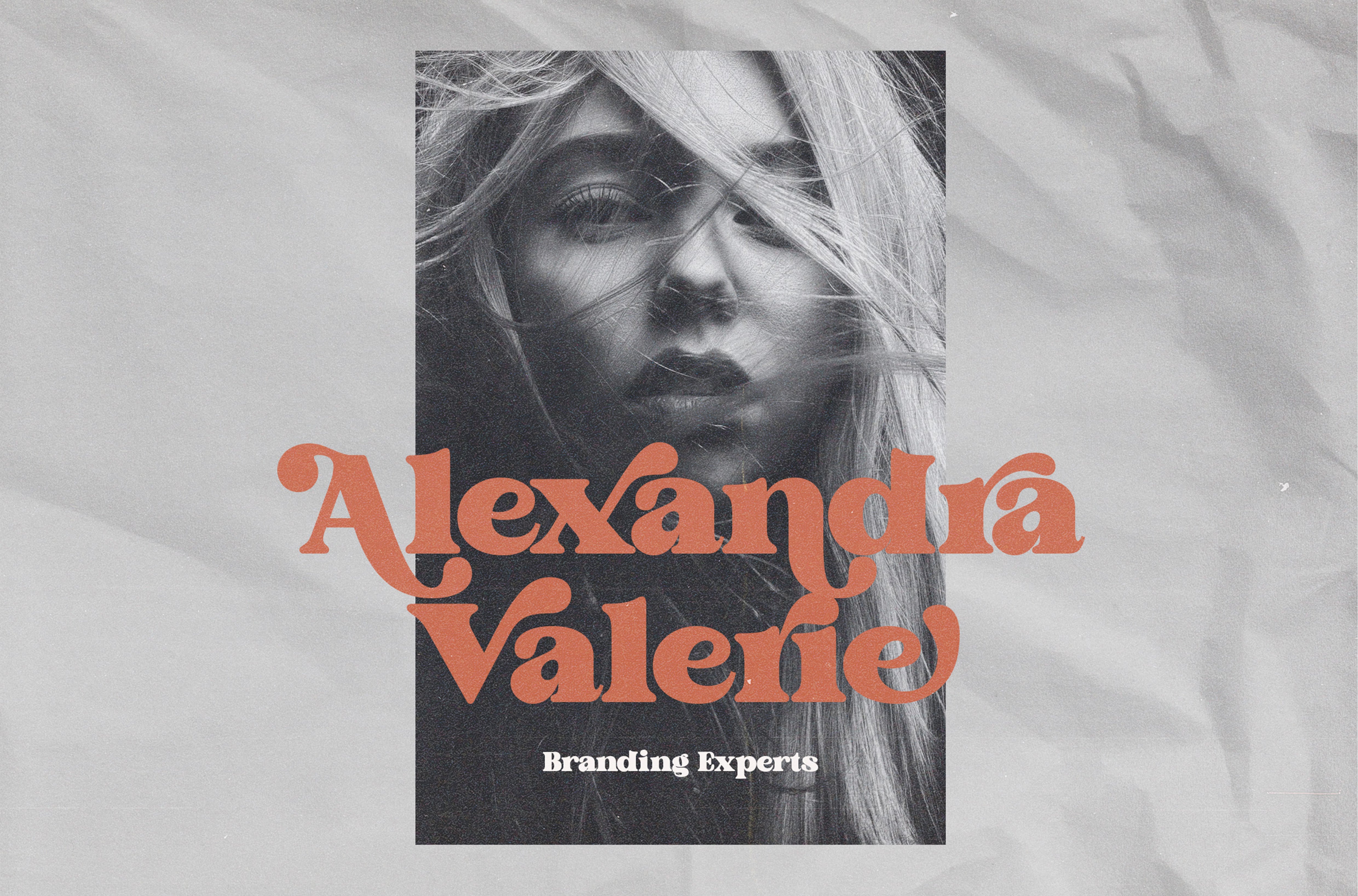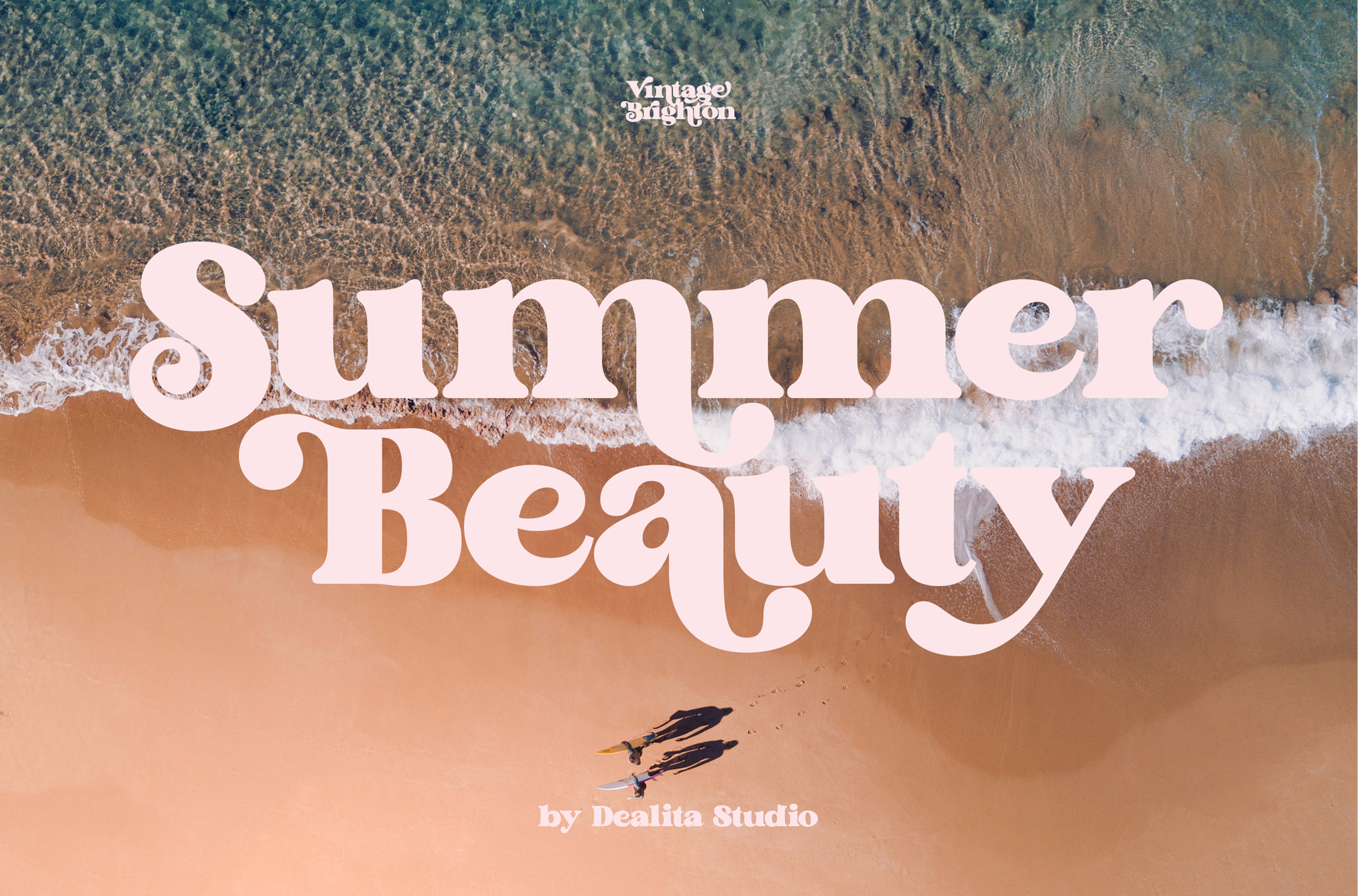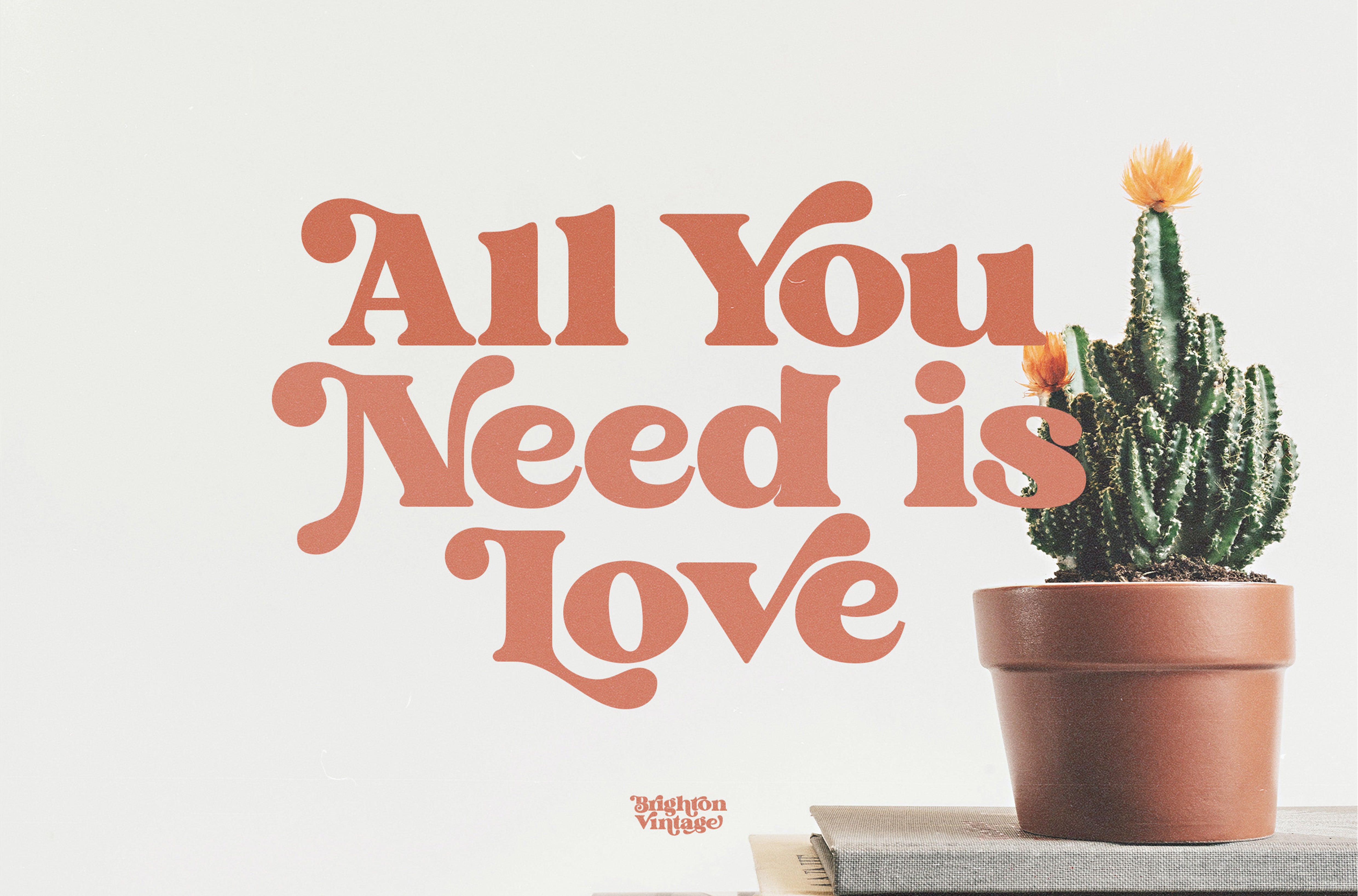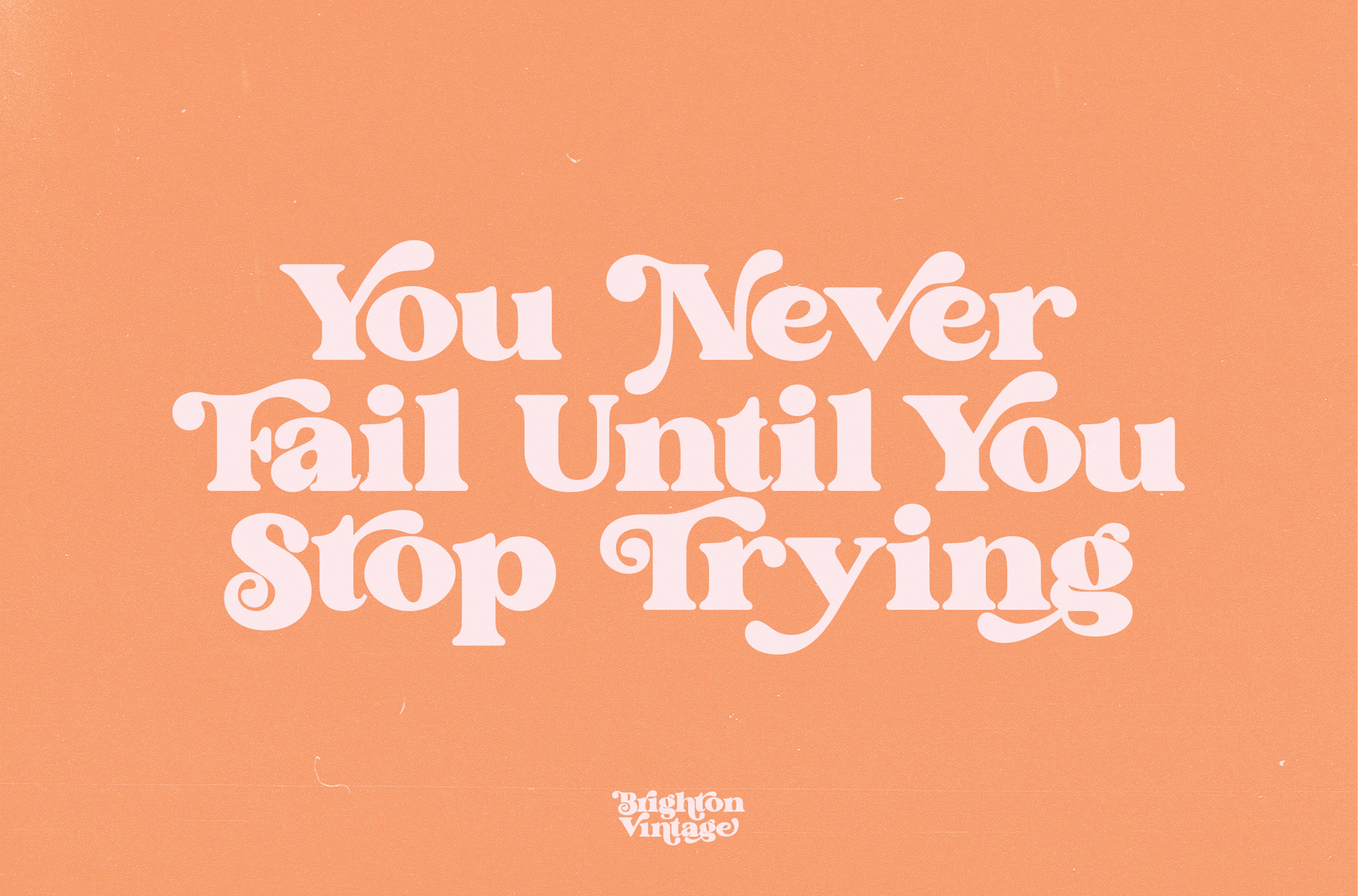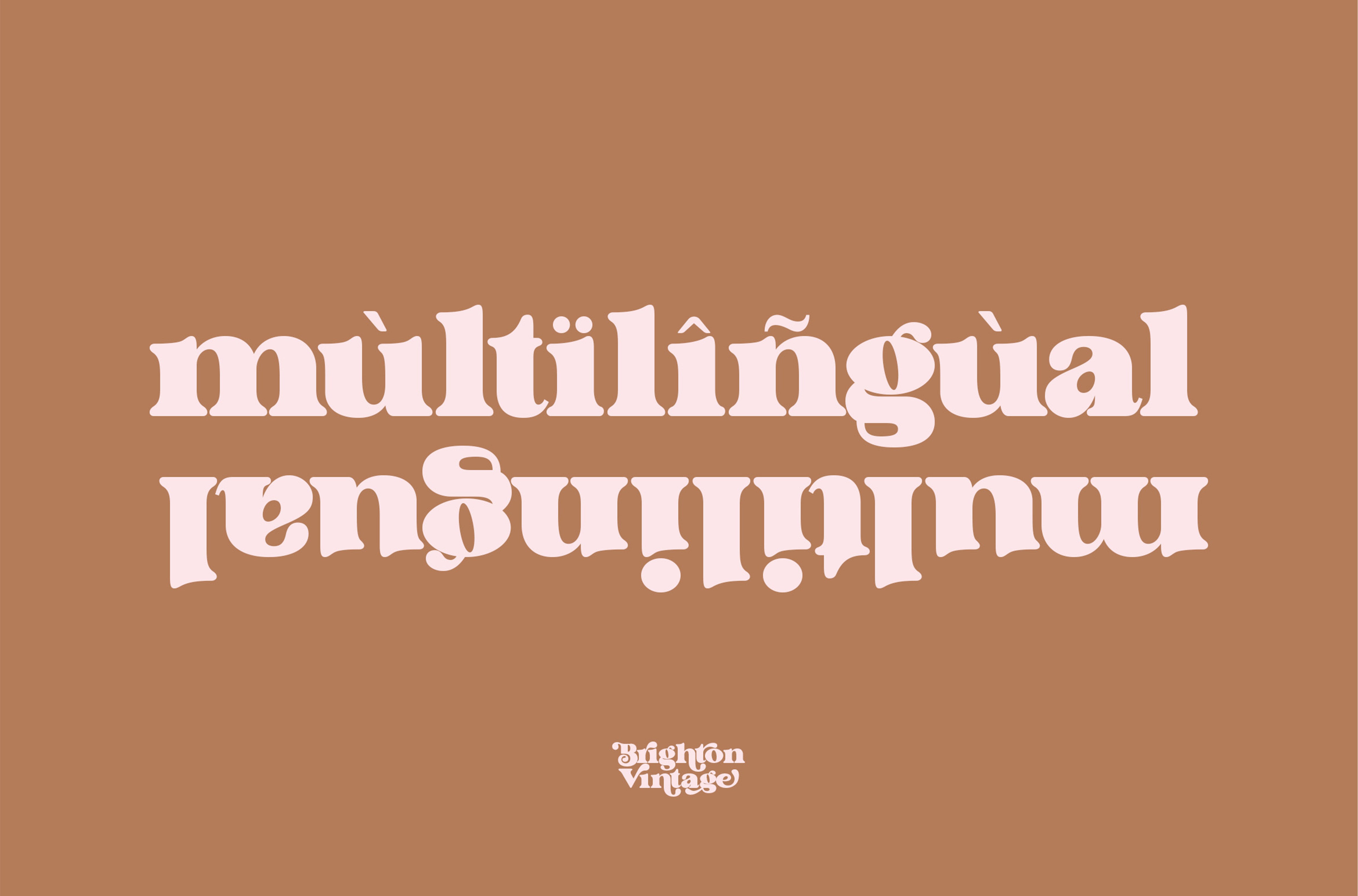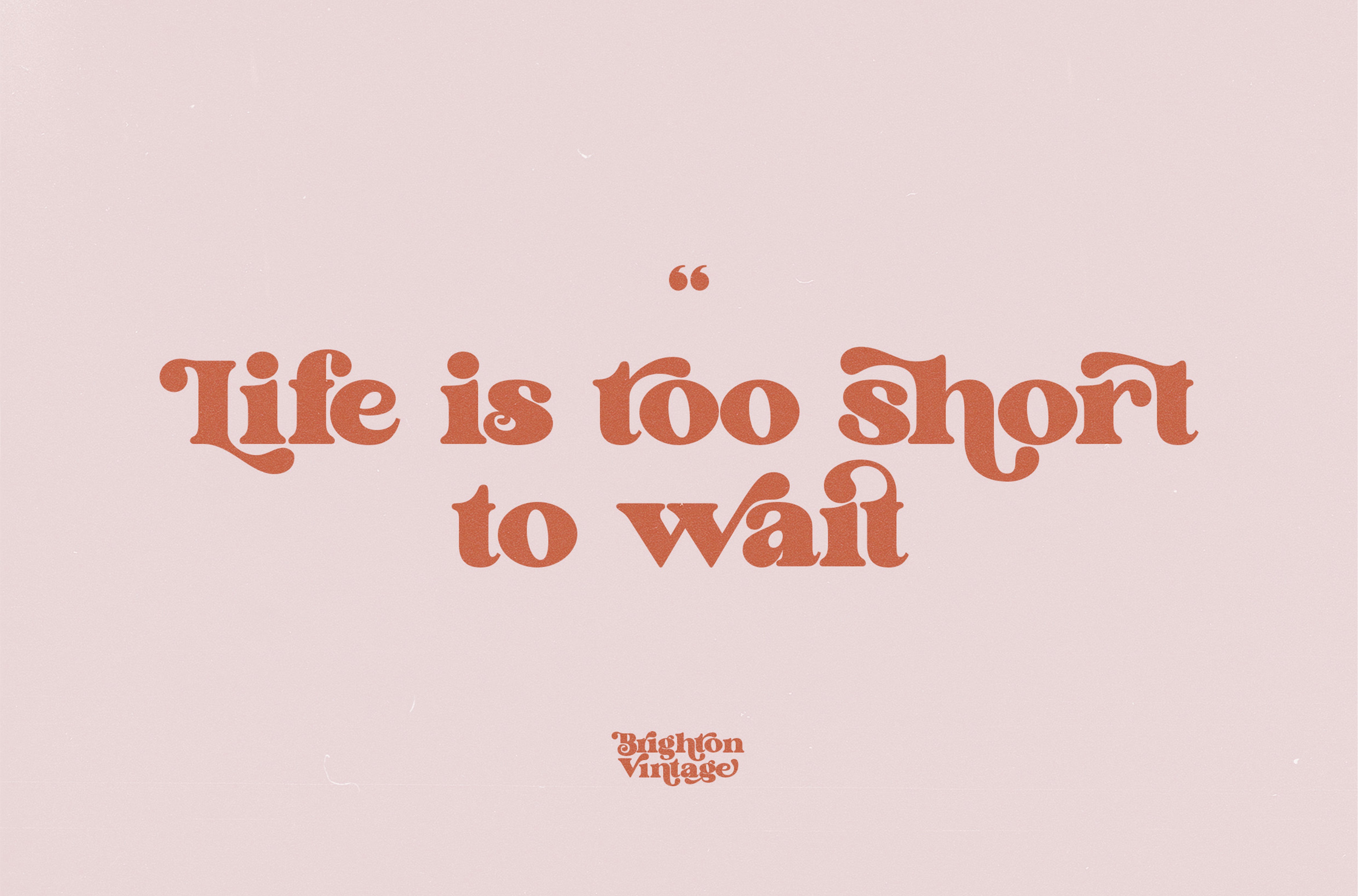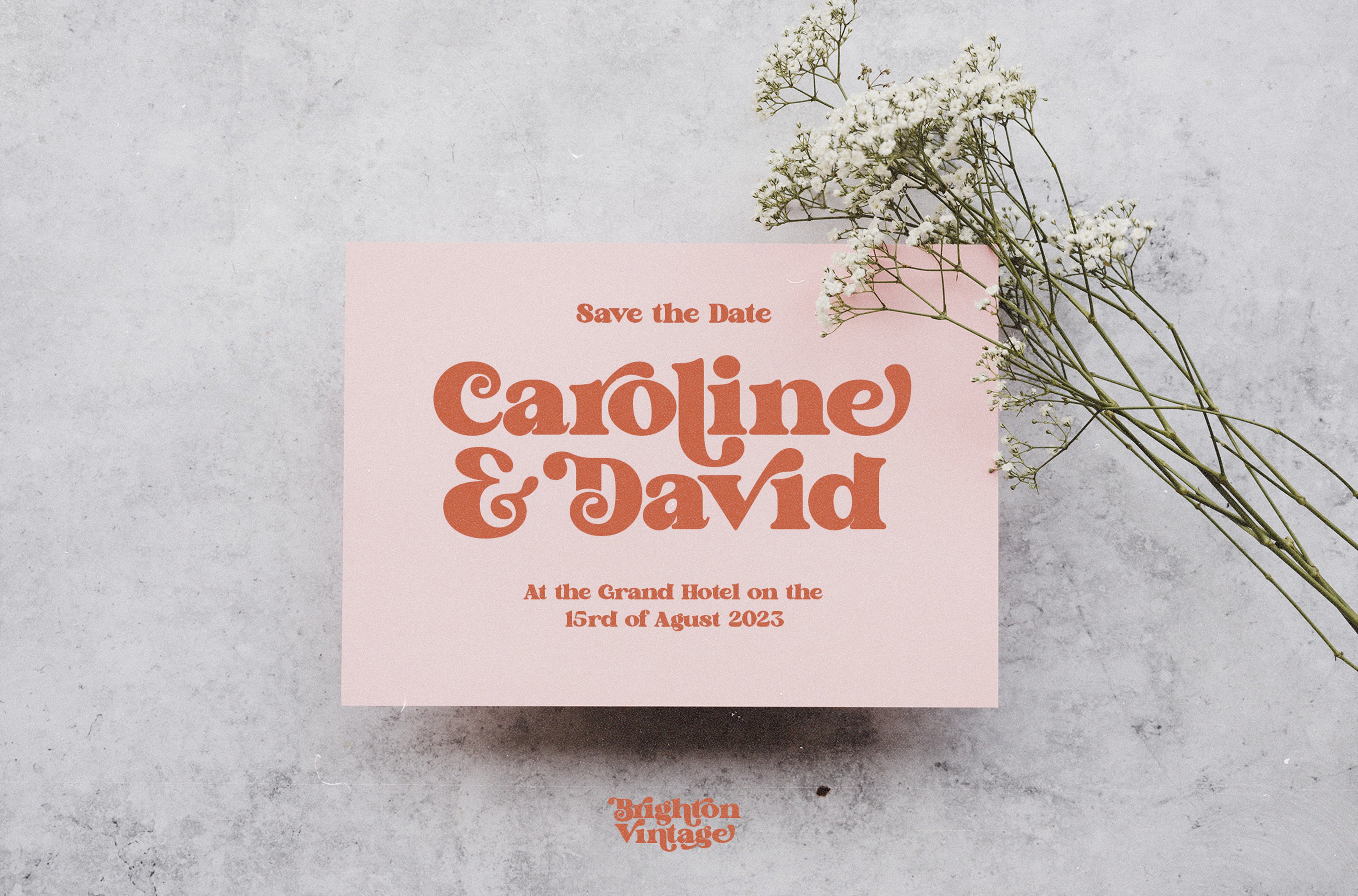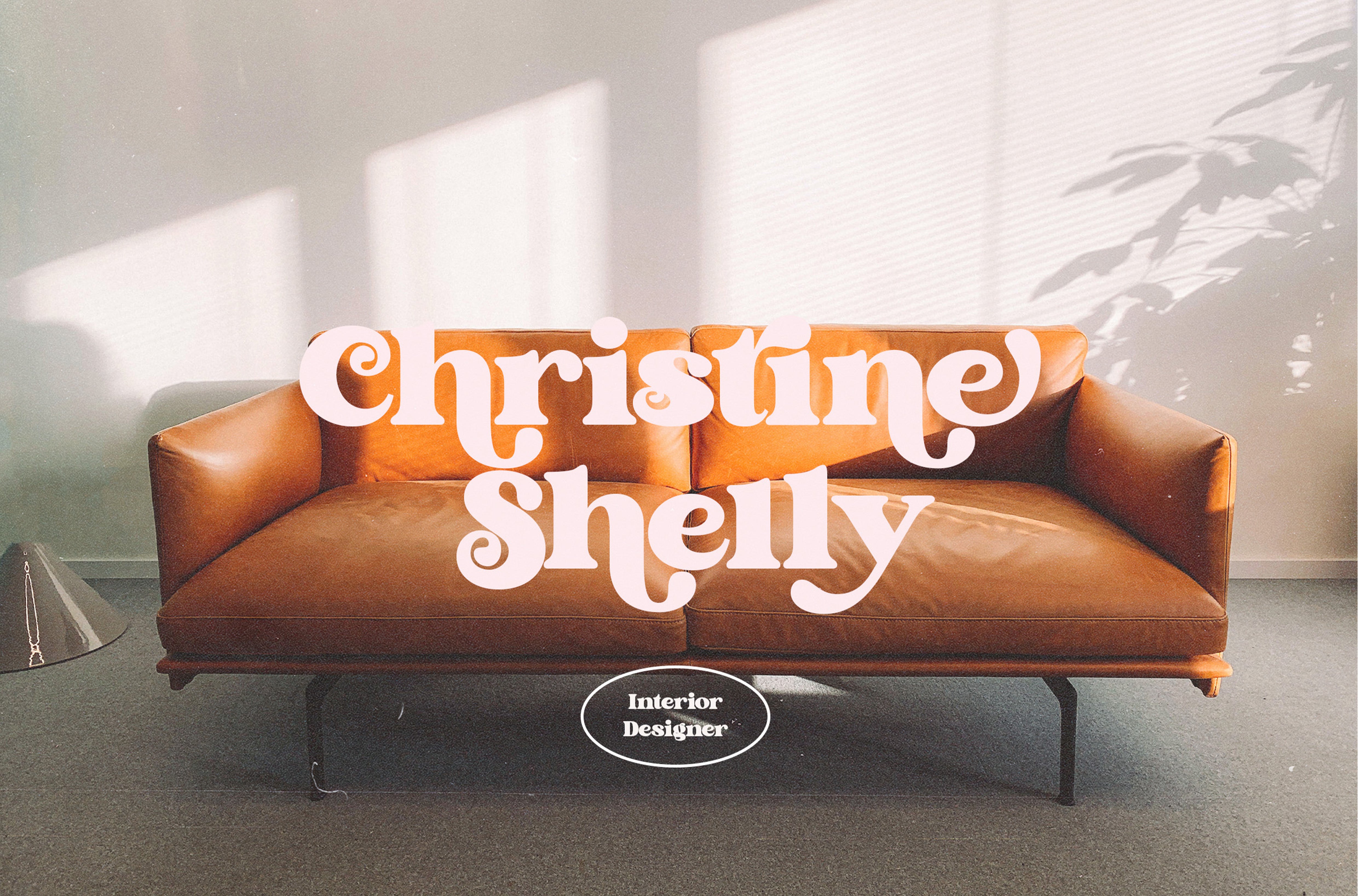
Brighton Vintage is a bold, 70s-inspired display font created by Dealita Studio that captures the vibrant energy of retro design with a modern twist. Featuring strong, flowing curves and a nostalgic flair, Brighton is perfect for branding, packaging, and design projects that want to evoke the spirit of the 70s.
Ideal for vintage labels, retro fashion, music branding, and nostalgic packaging, Brighton adds a playful yet powerful presence to your typography. Its bold structure and unique character make it ideal for projects that want to stand out with authenticity and style.
Key features:
Brighton pairs perfectly with minimalist sans-serifs or clean serifs for a striking contrast. Use it to create eye-catching designs for:
• Retro product packaging and labels • Vintage fashion and lifestyle branding • Music posters and event graphics • Nostalgic social media content • Statement logos and exhibition titles
Whether you’re reviving a classic brand or launching a bold new identity, Brighton gives your design the retro flair and confidence it deserves.
Turn up the nostalgia — with Brighton Vintage, the 70s-inspired font that never fades.